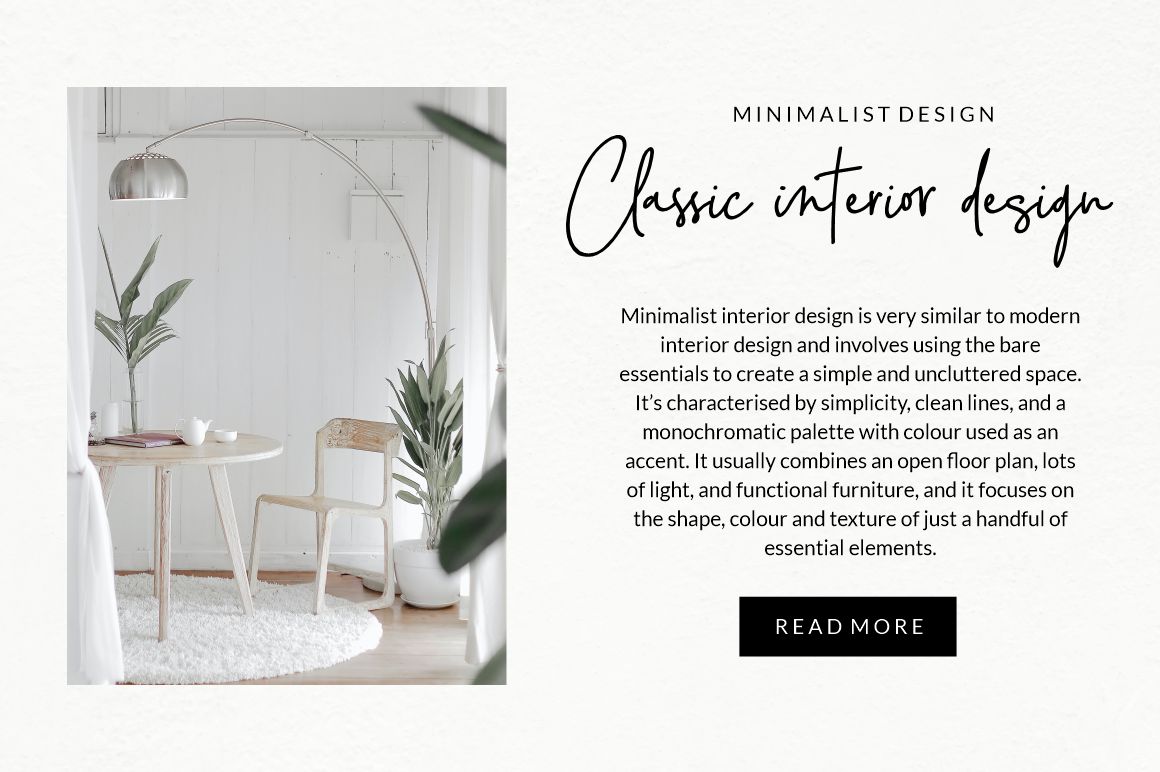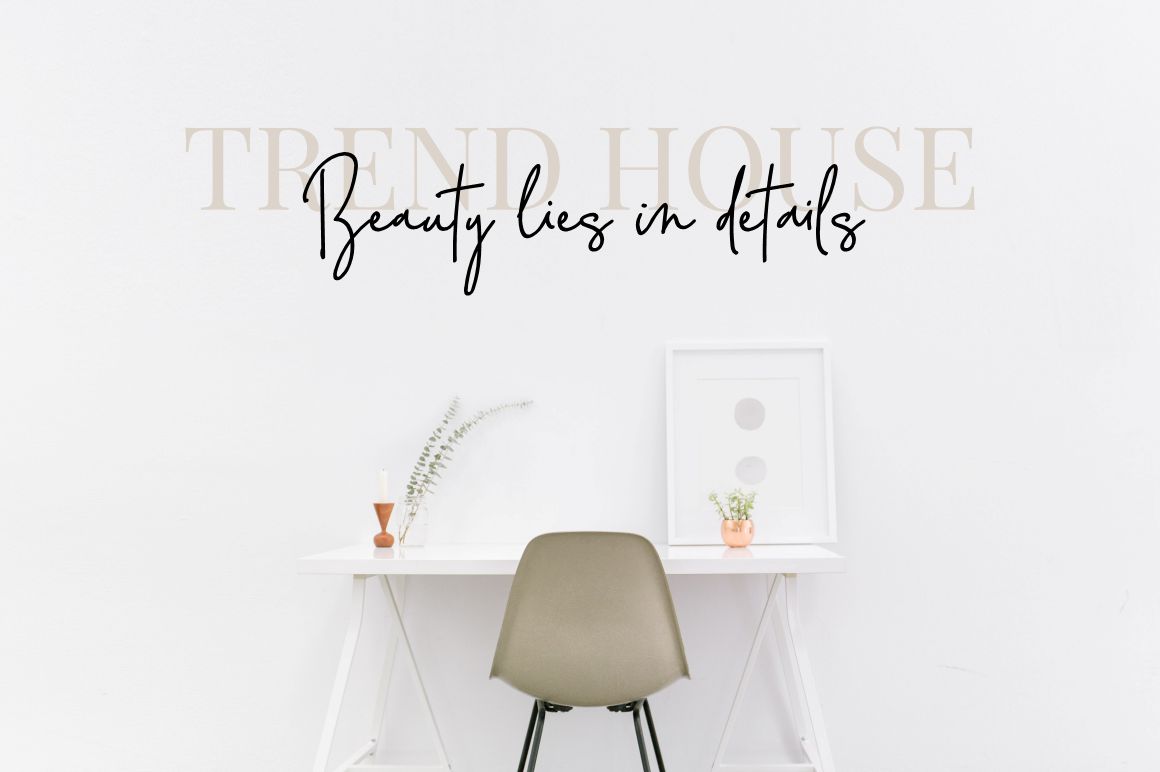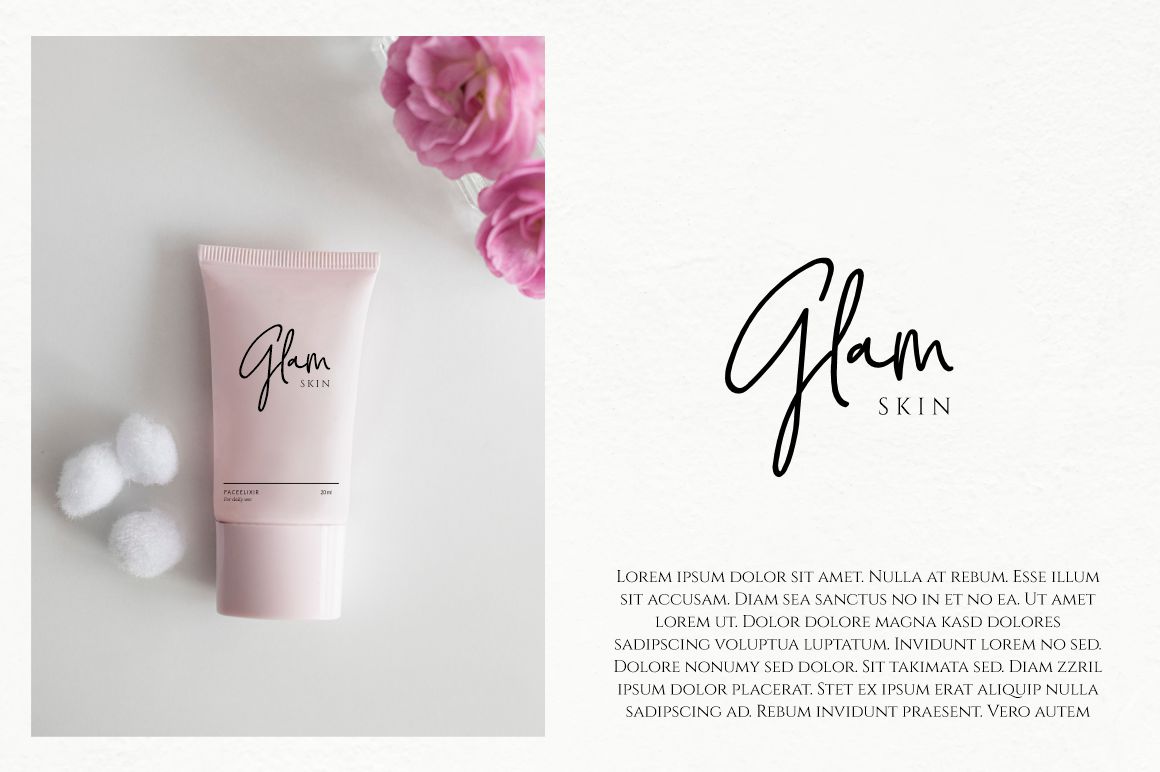
Blink High Script Font
It’s a beautiful handwriting font based on authentic hand writing with natural signature style. Blink High Signature Script is perfect for branding projects, logo, wedding designs, social media posts, advertisements, product packaging, product designs, label, photography, watermark, invitation, stationery and any projects that need handwriting taste.